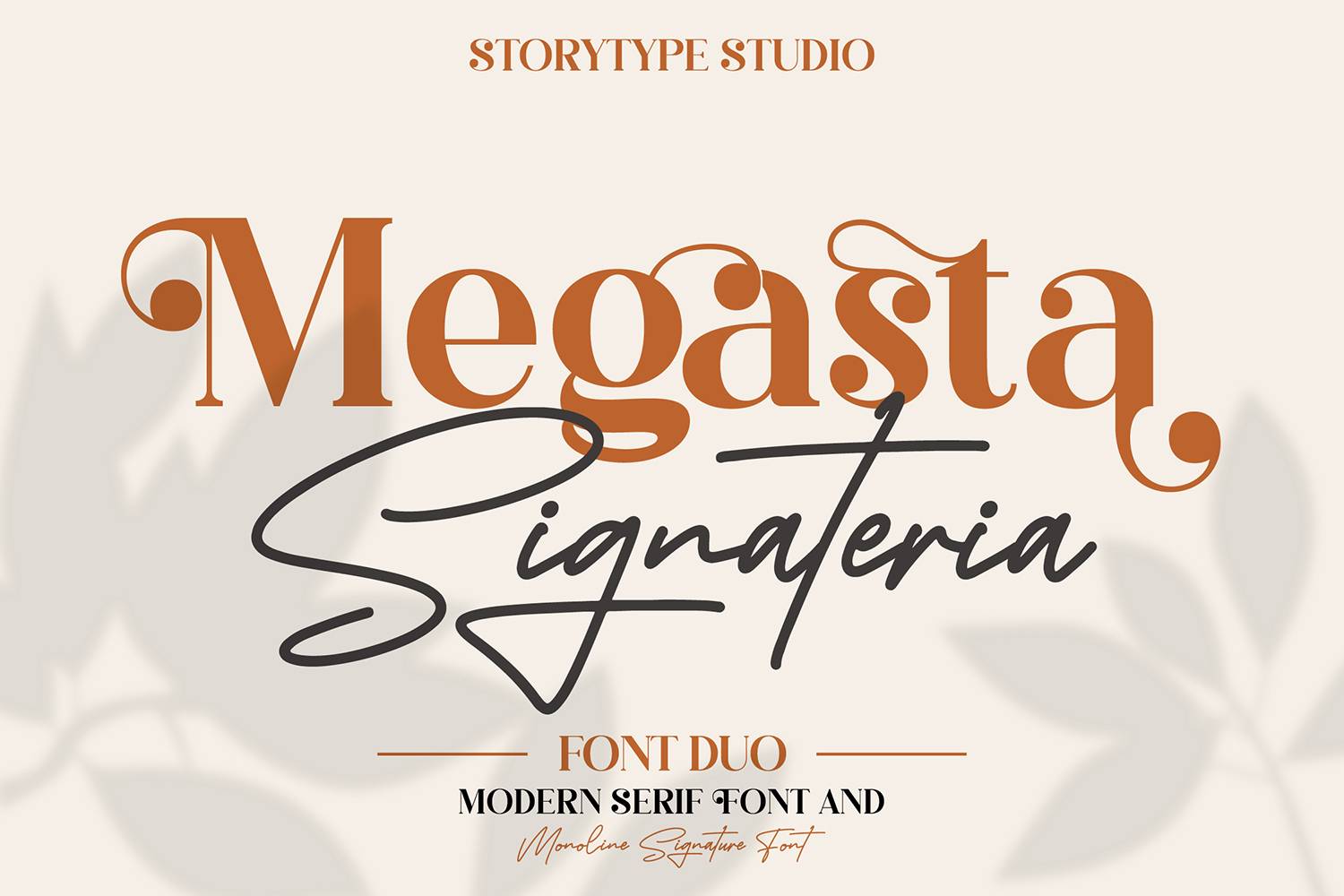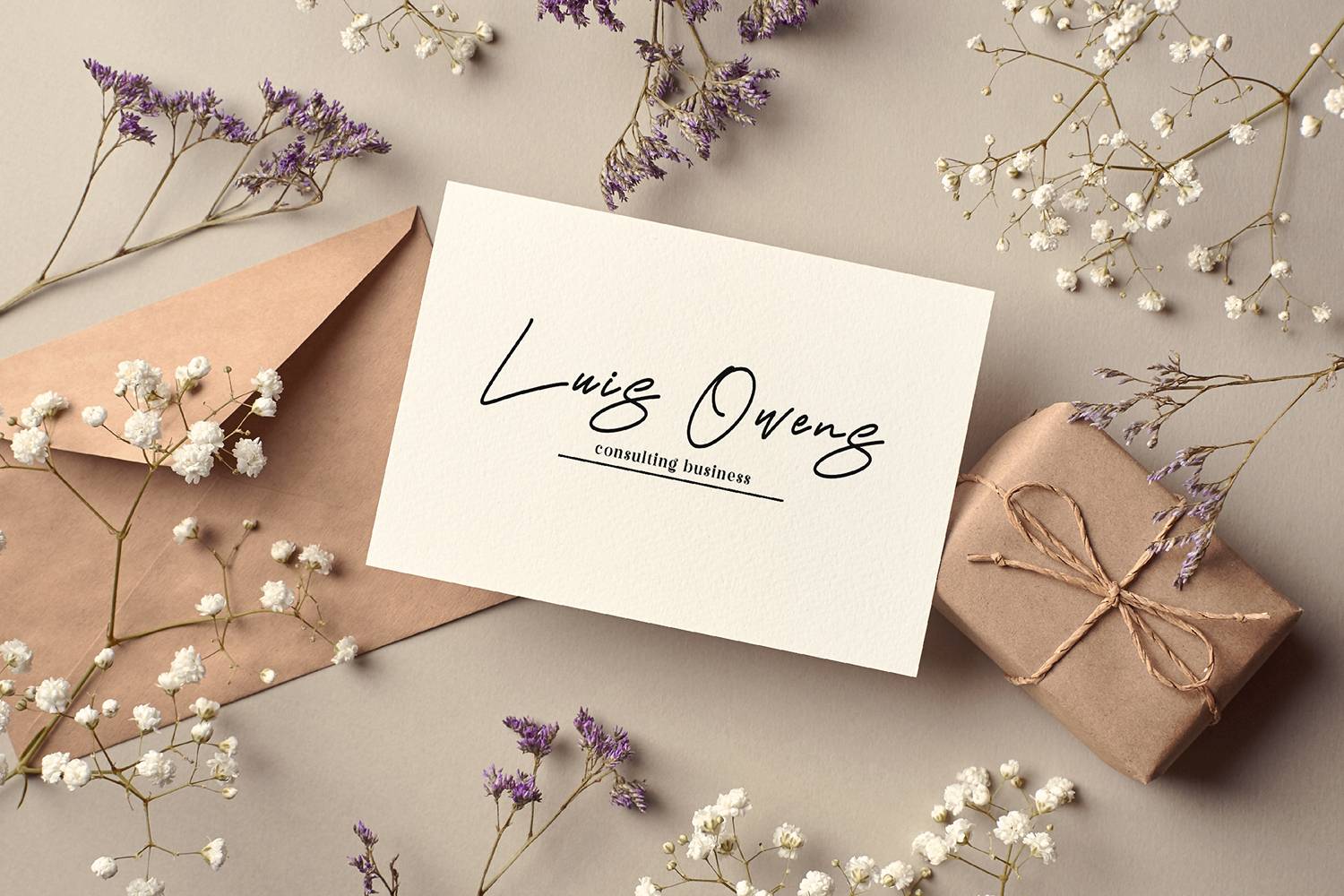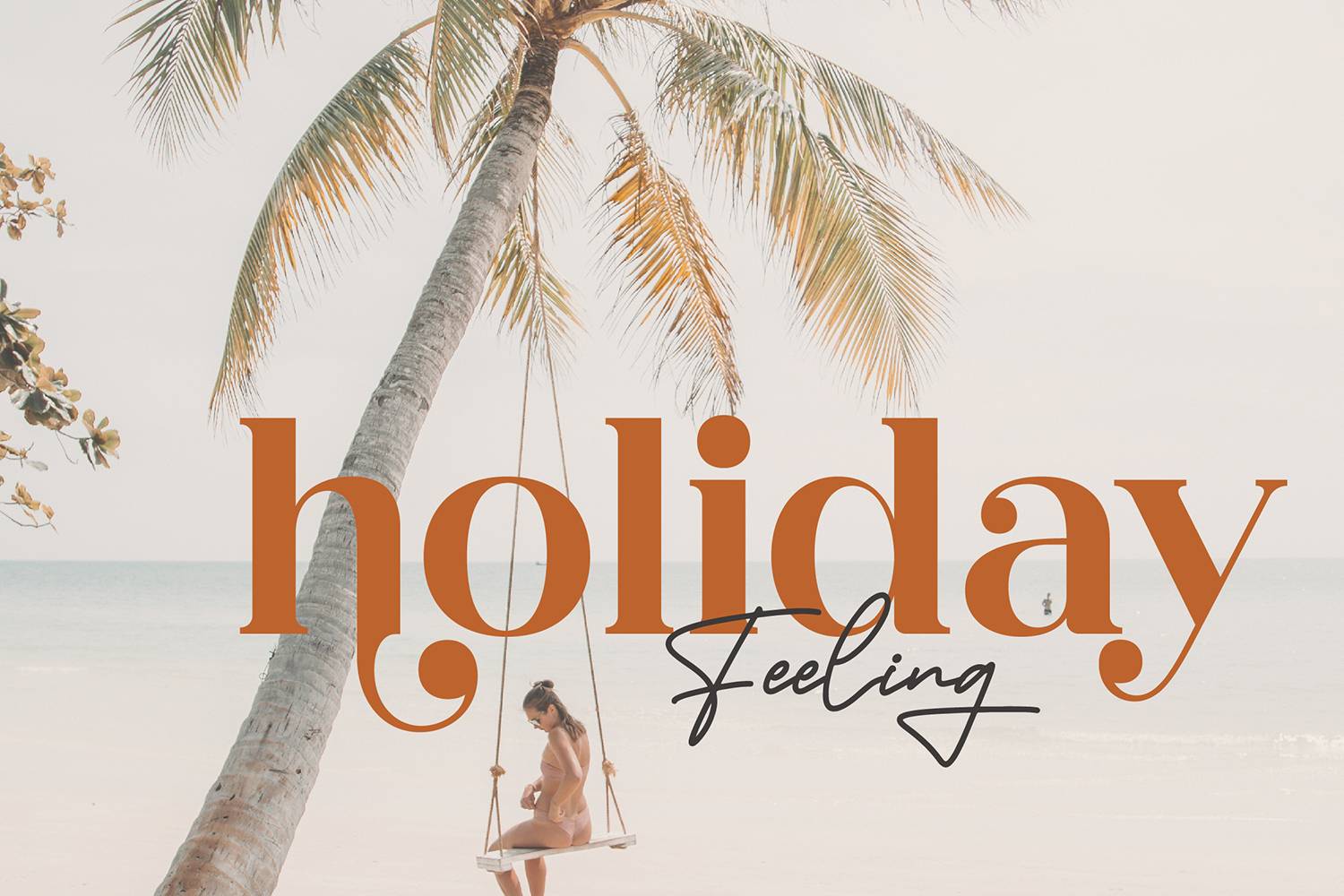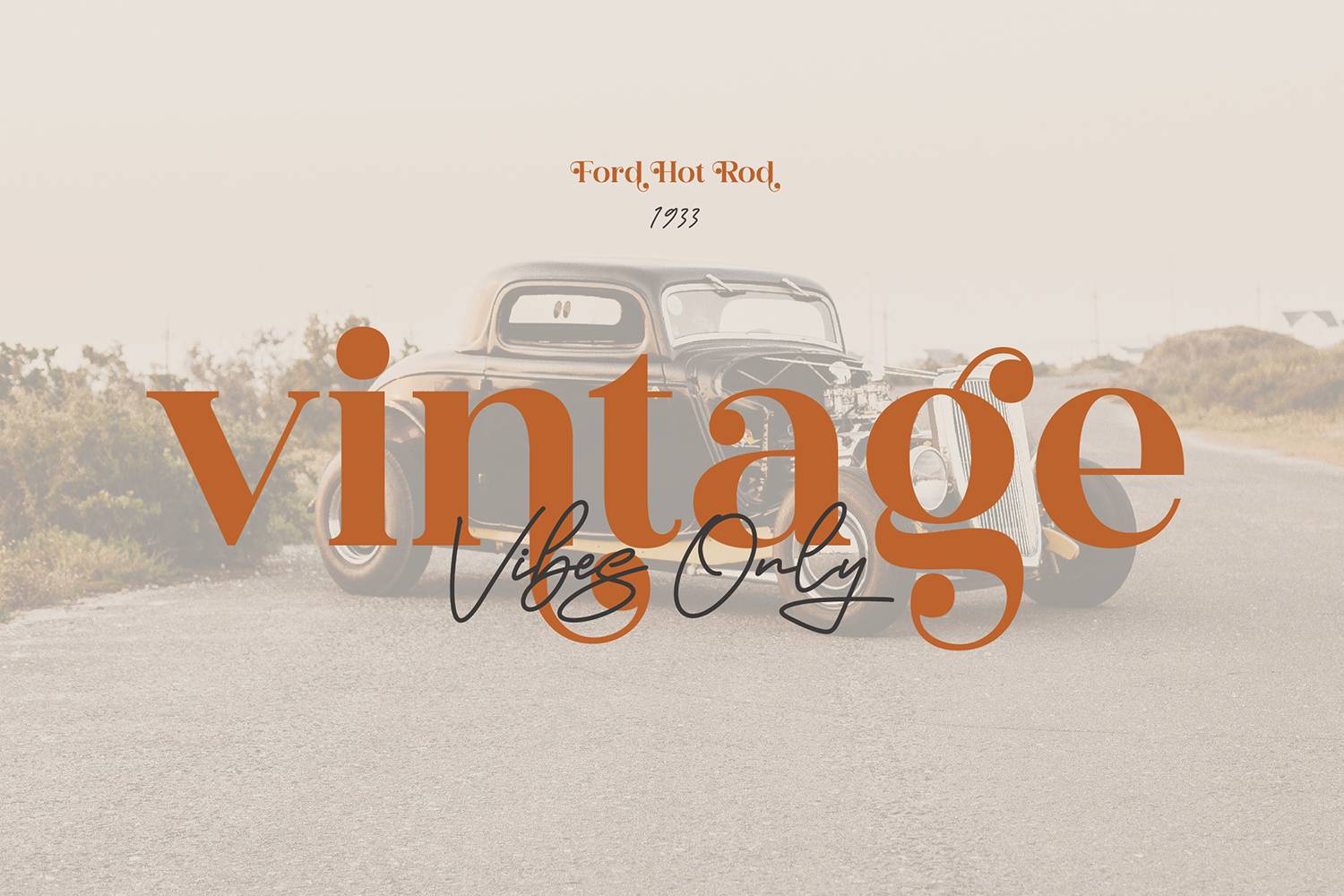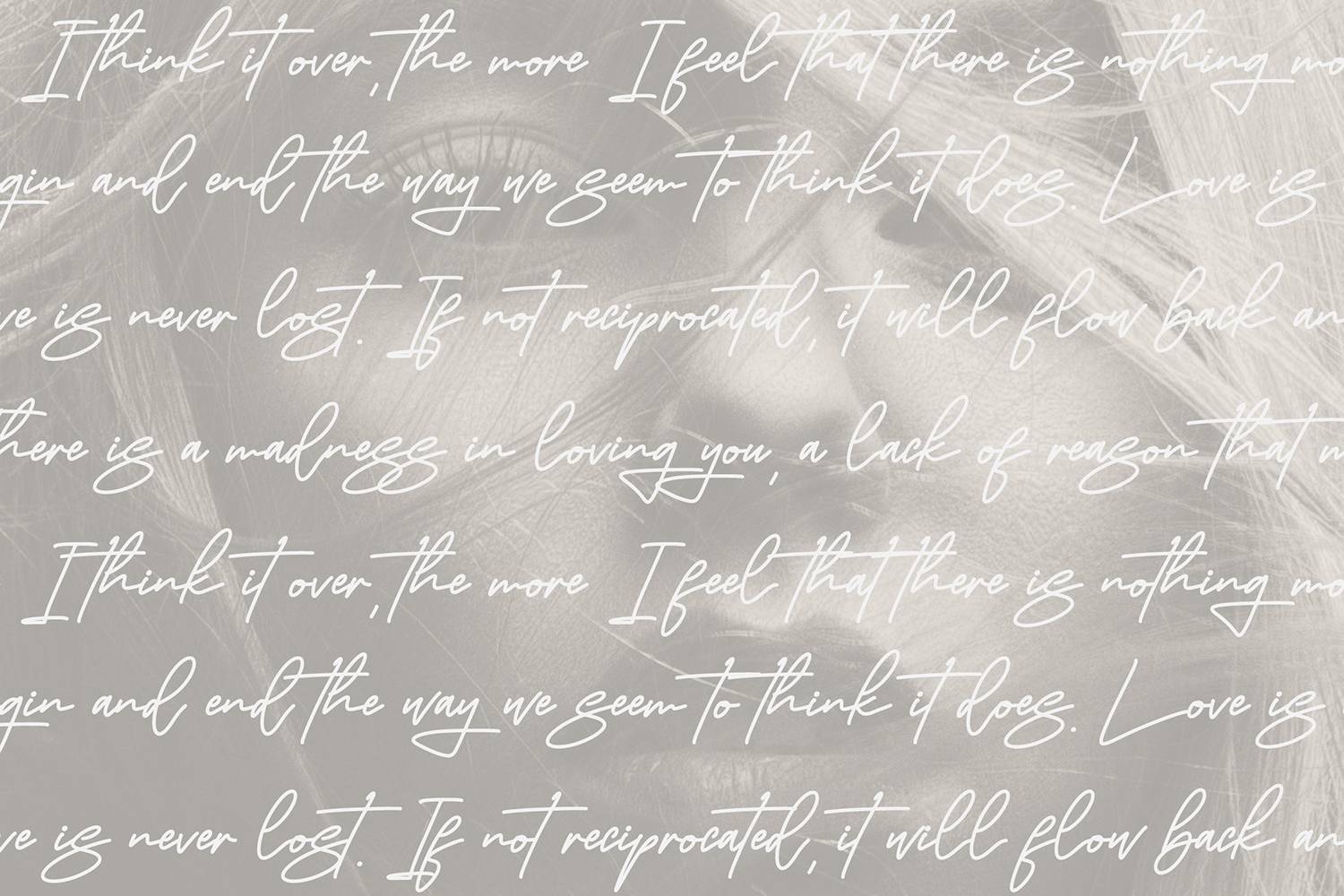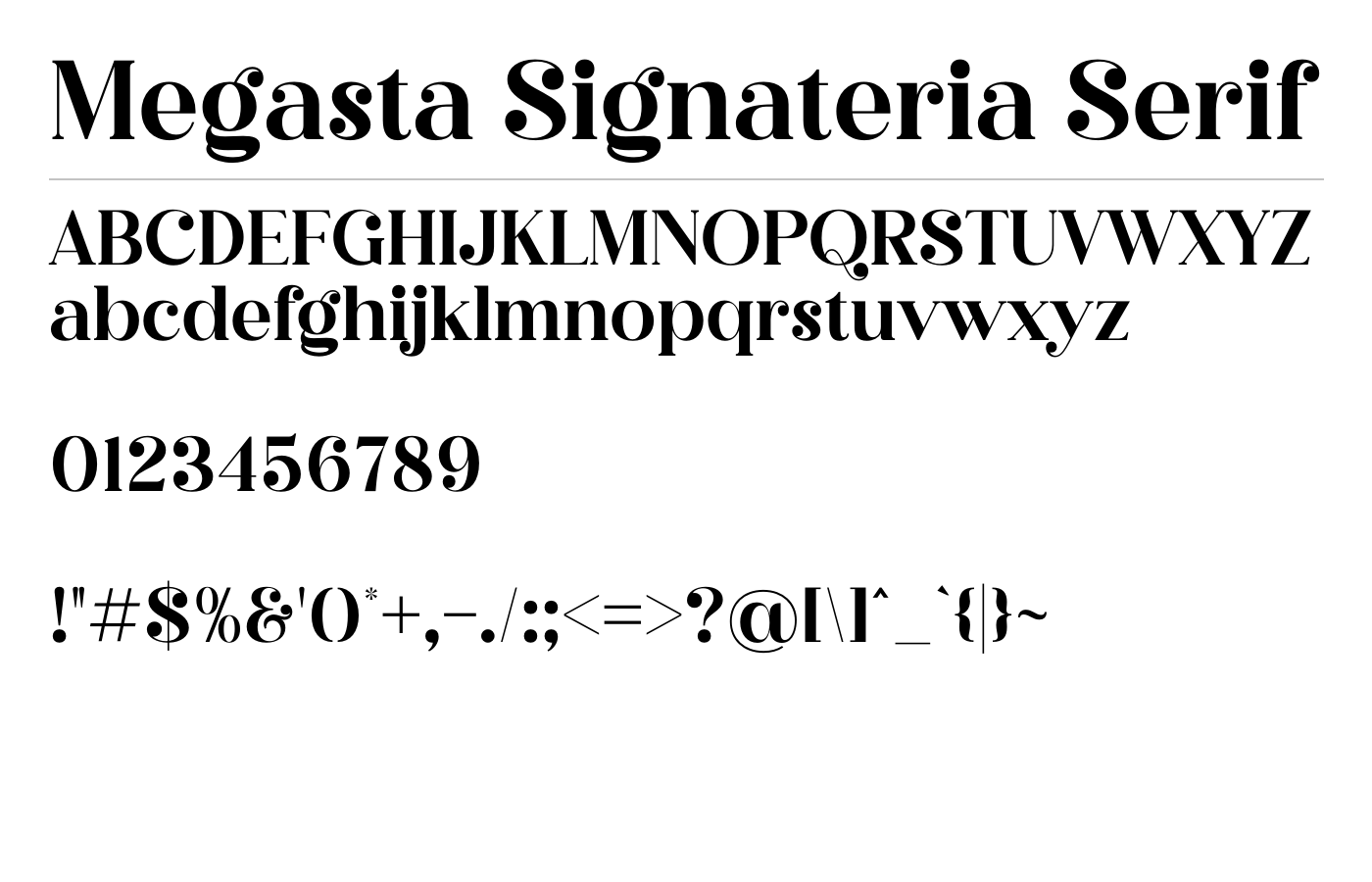
Megasta Signateria Serif is a stylish serif font with a striking contrast between thick and thin strokes and unique curled terminals that add a touch of elegance and character. Its balanced weight and classic, modern serif shapes make it ideal for luxury branding, editorial design, and sophisticated headlines where a distinctive yet readable look is desired. This font works beautifully for projects seeking a refined, contemporary, and memorable typographic presence.
Megasta Signateria Font
About Megasta Signateria Font
| Font family | Megasta Signateria Font |